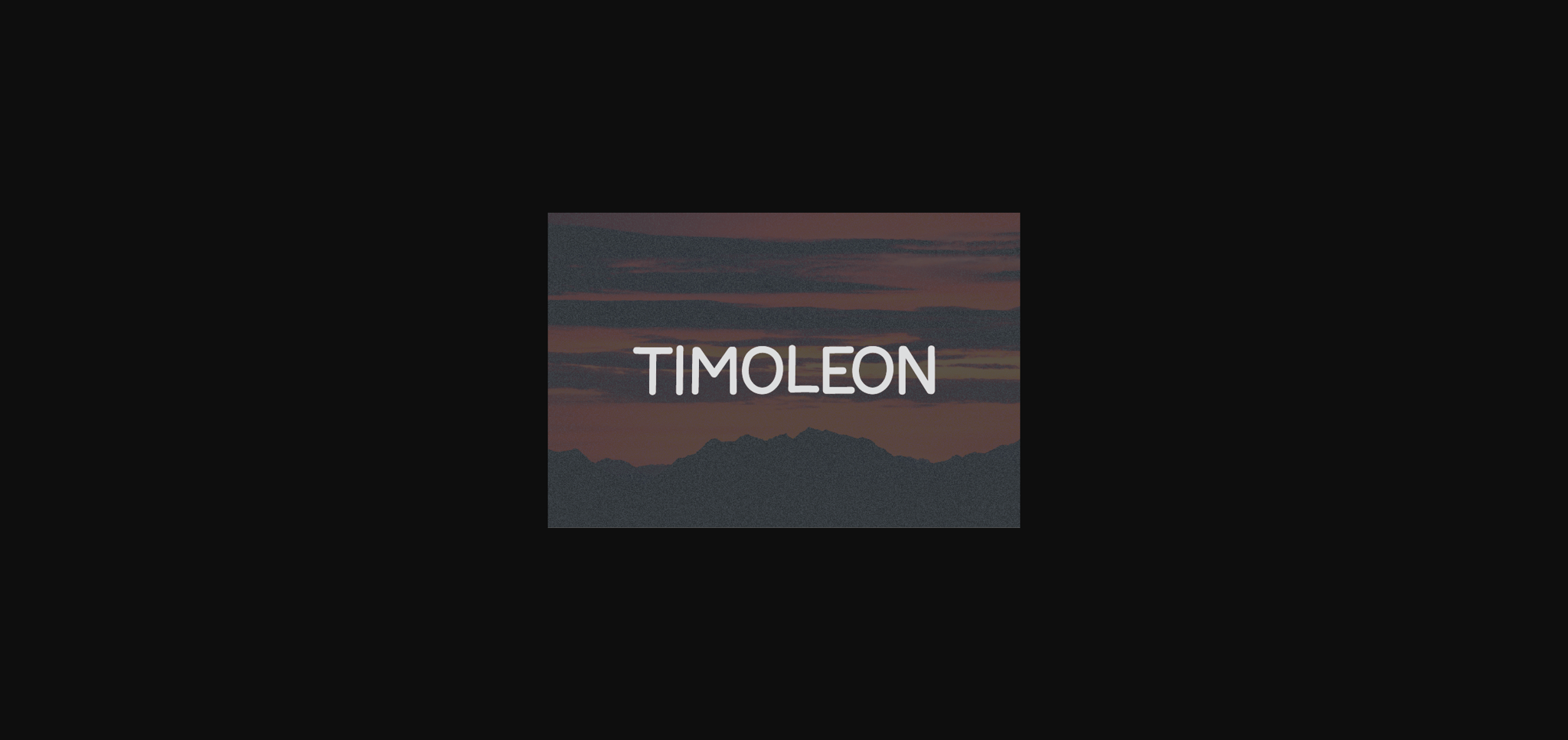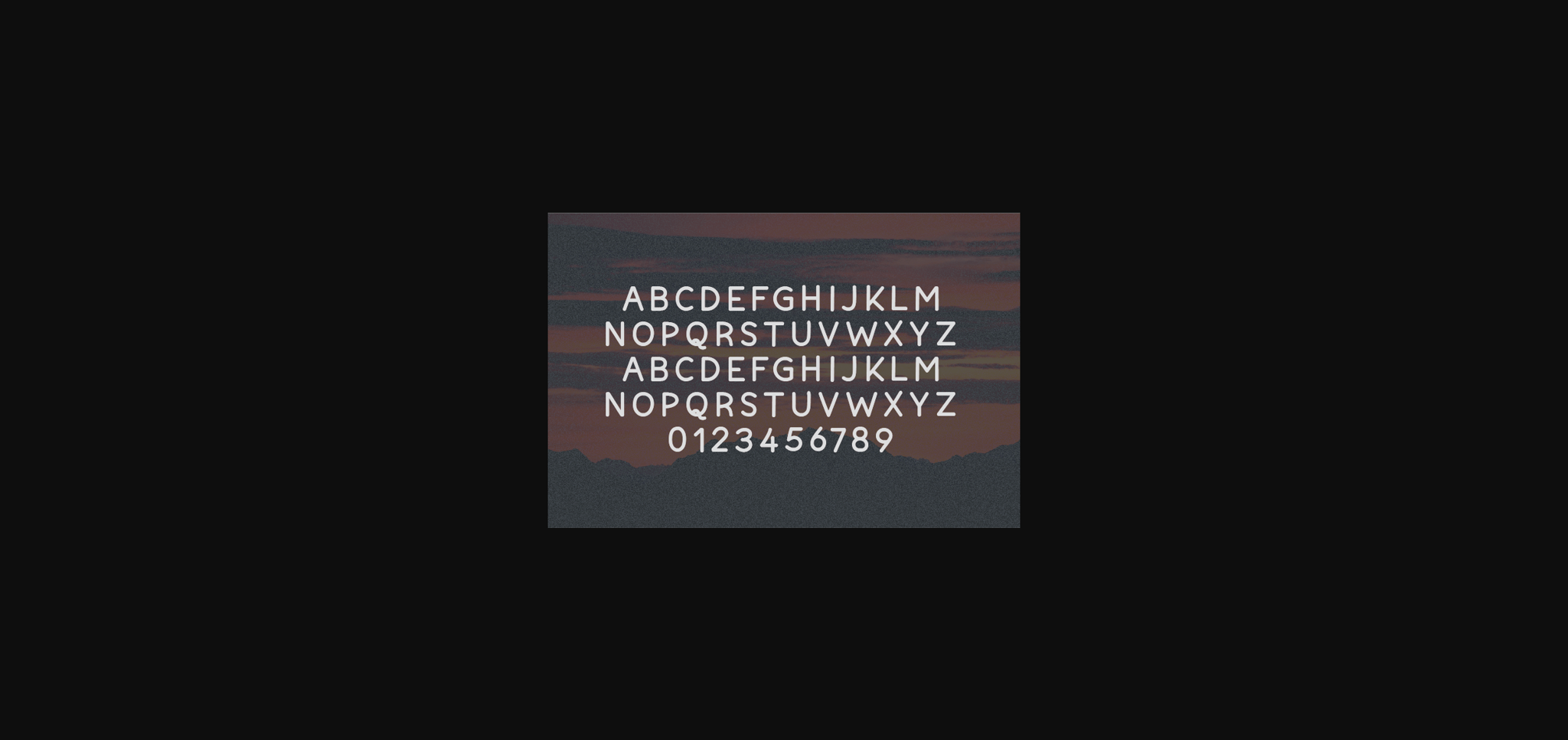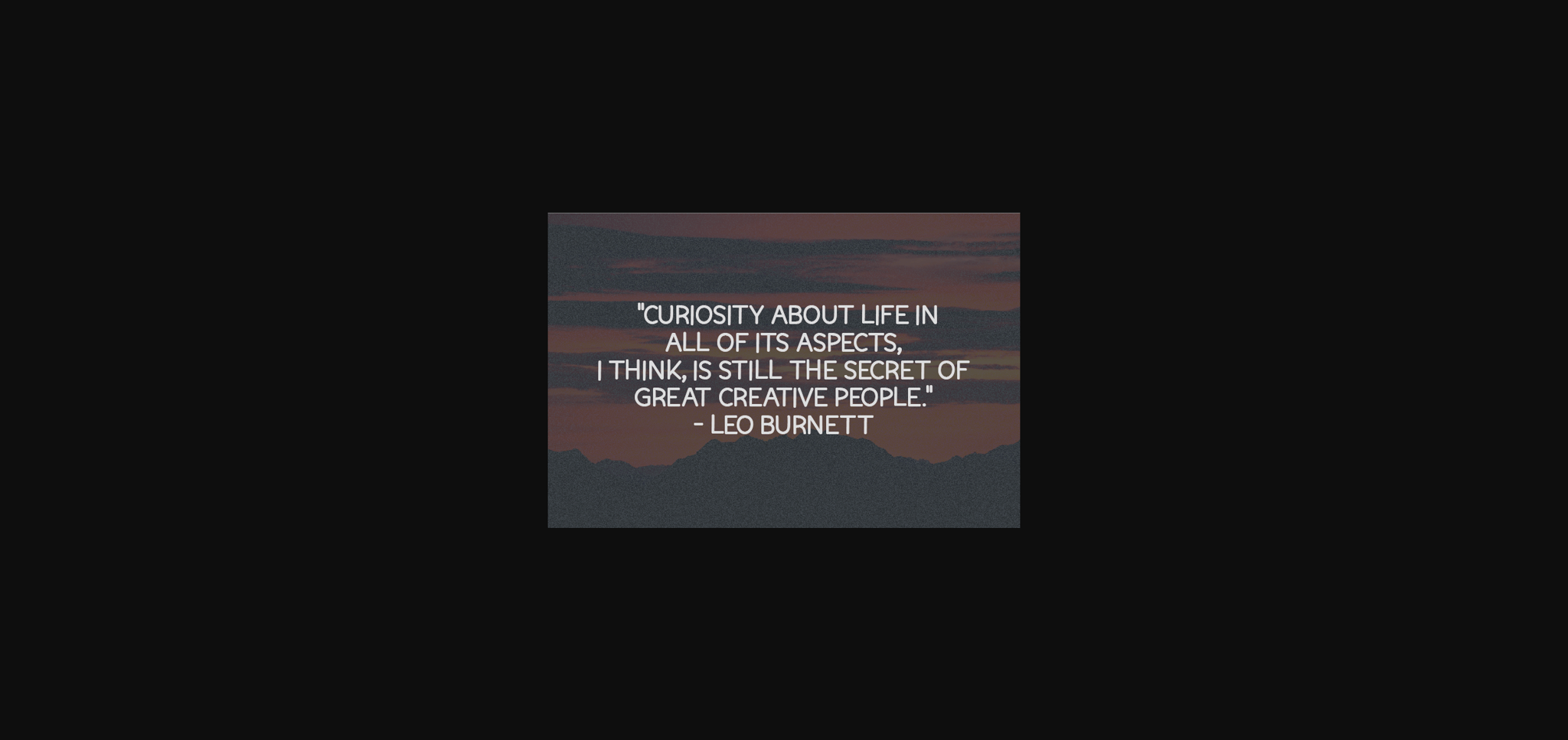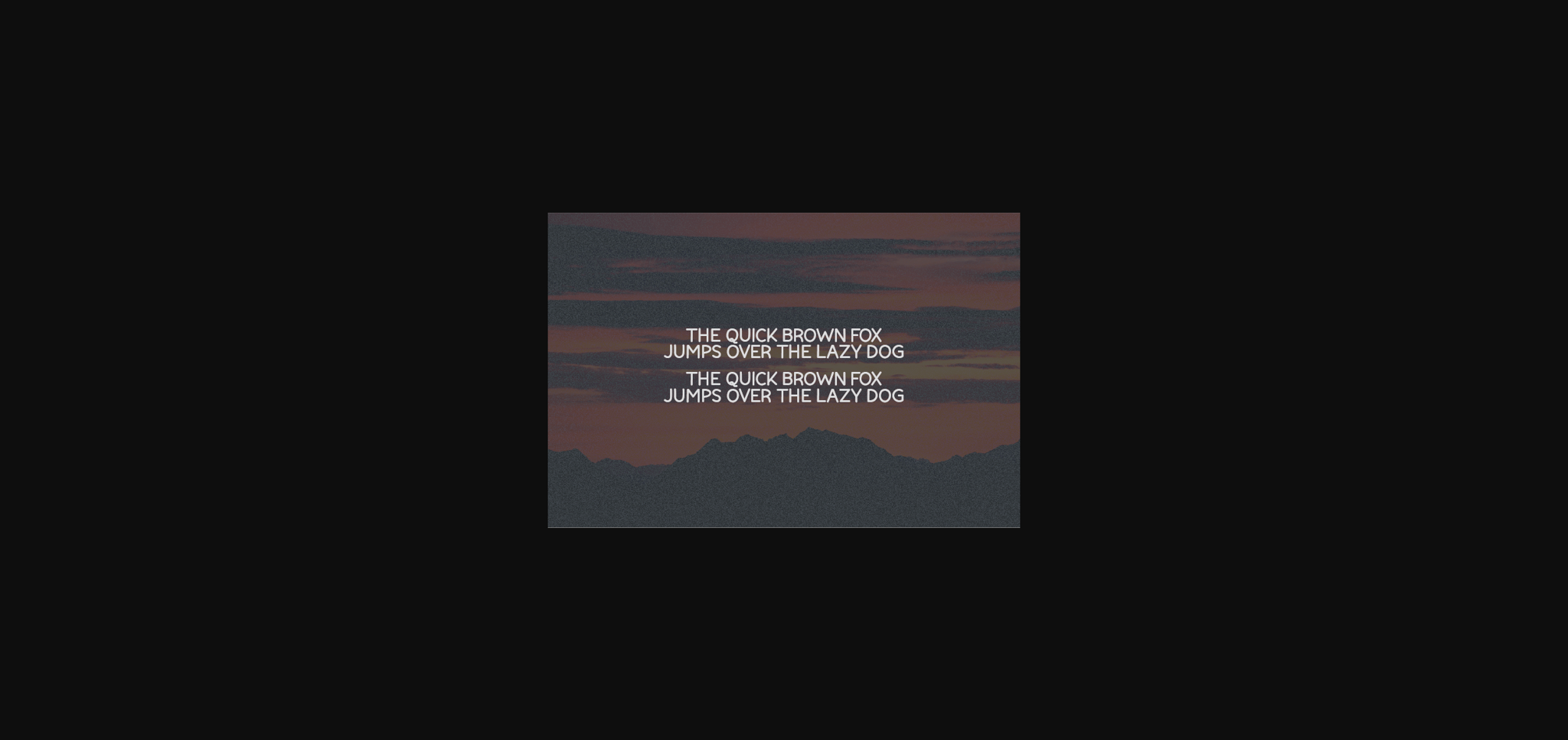
About Timoleon Font
Timoleon is a natural sans serif font made without changing a single node in each character’s indentation- this makes this font very interesting and unique. Perfect for quotes, notes, tees, and any product design.